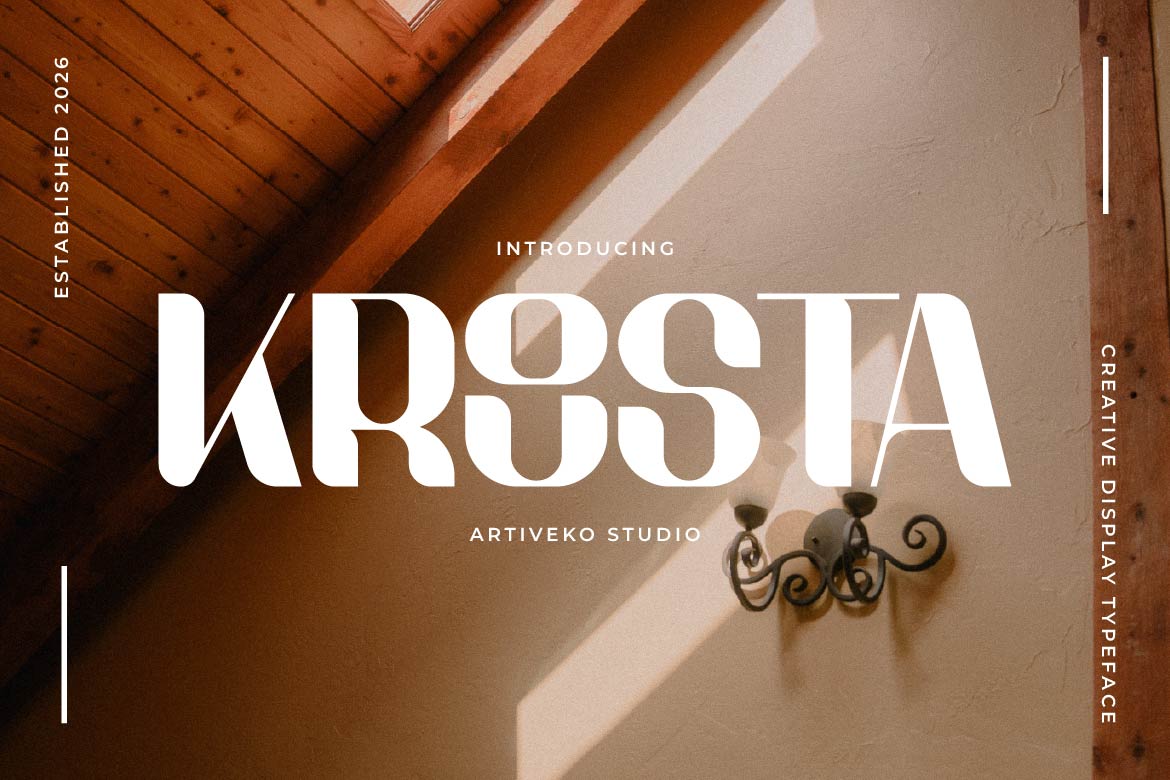
- Krousta – Premium Modern Typeface
In today’s world, a brand has only seconds to make a memorable first impression. Krousta was created for exactly that moment.
Krousta is a creative minimalist sans serif that blends clean geometry with distinctive character, giving designers the freedom to build brands that feel modern, intelligent, and instantly recognizable. Every curve and proportion is carefully refined to create a typeface that is simple enough to stay timeless, yet unique enough to avoid looking ordinary.
Designed for the new generation of visual identity, Krousta feels equally at home in AI startups, technology companies, premium lifestyle brands, fashion labels, digital products, creative agencies, architecture studios, and personal brands. Its contemporary personality allows it to transition effortlessly between bold logo designs, sophisticated editorial layouts, elegant packaging, responsive websites, mobile applications, and social-first marketing campaigns.
Rather than following short-lived design trends, Krousta embraces a design philosophy centered on clarity, flexibility, and longevity. It performs beautifully across both print and digital environments, making it an essential tool for designers building brands that need to remain relevant for years—not just seasons.
Whether you’re launching a startup, refreshing a visual identity, or crafting a premium logo, Krousta delivers a modern typographic voice that feels confident, refined, and unmistakably original.
Krousta isn’t just a typeface—it’s a design system for brands built to thrive in the digital era.